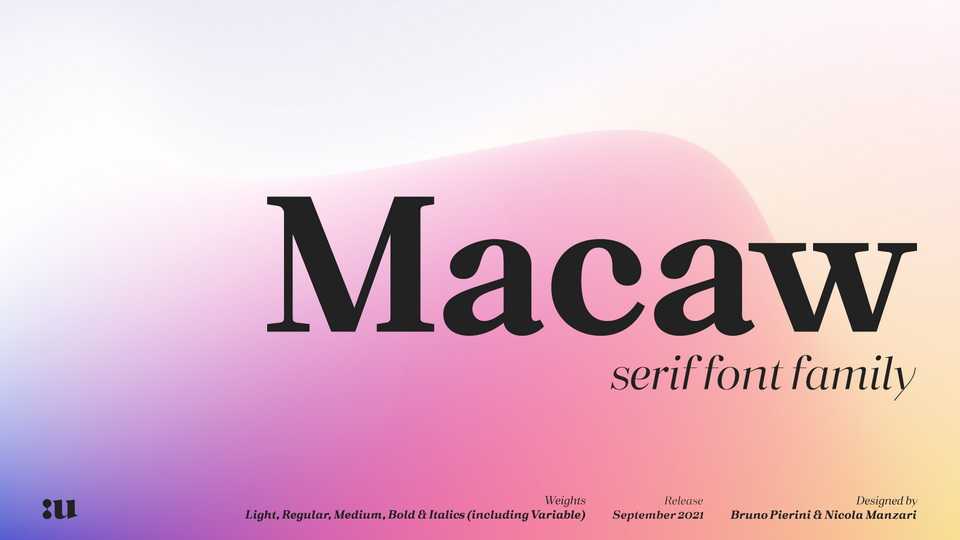
Download Macaw font, a modern serif typeface with roots in classical typography. Macaw unleashes a powerful and distinctive emphasis on your project.
Designer: Unio Creative Solutions